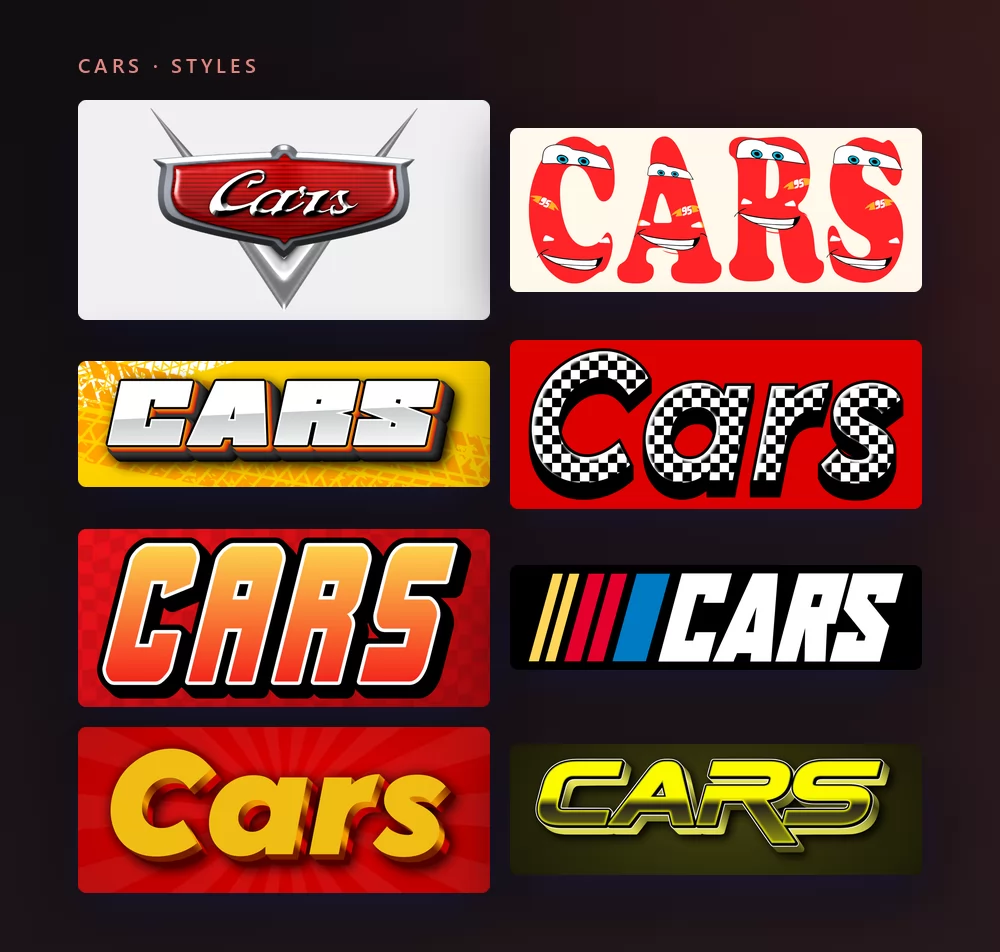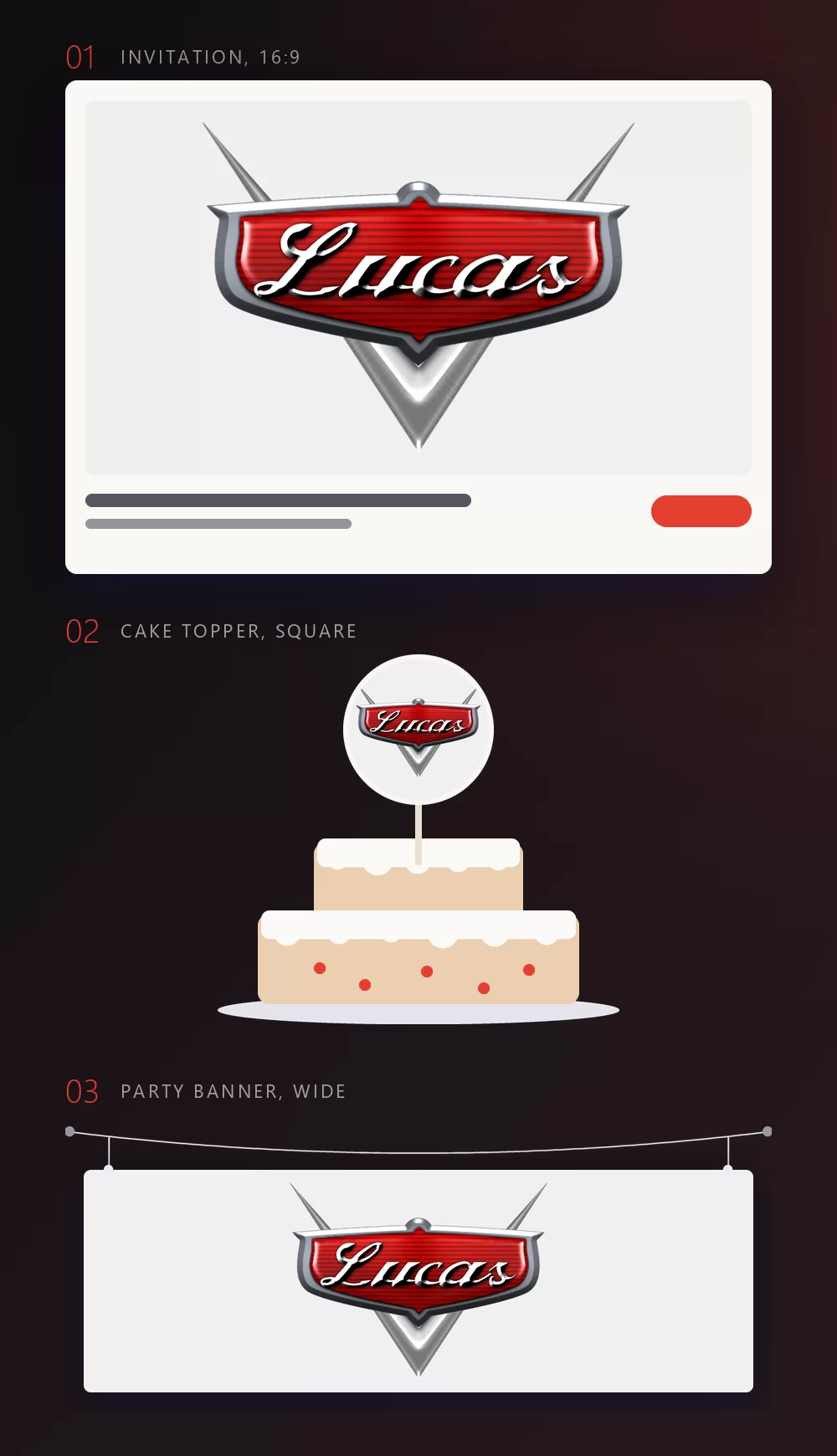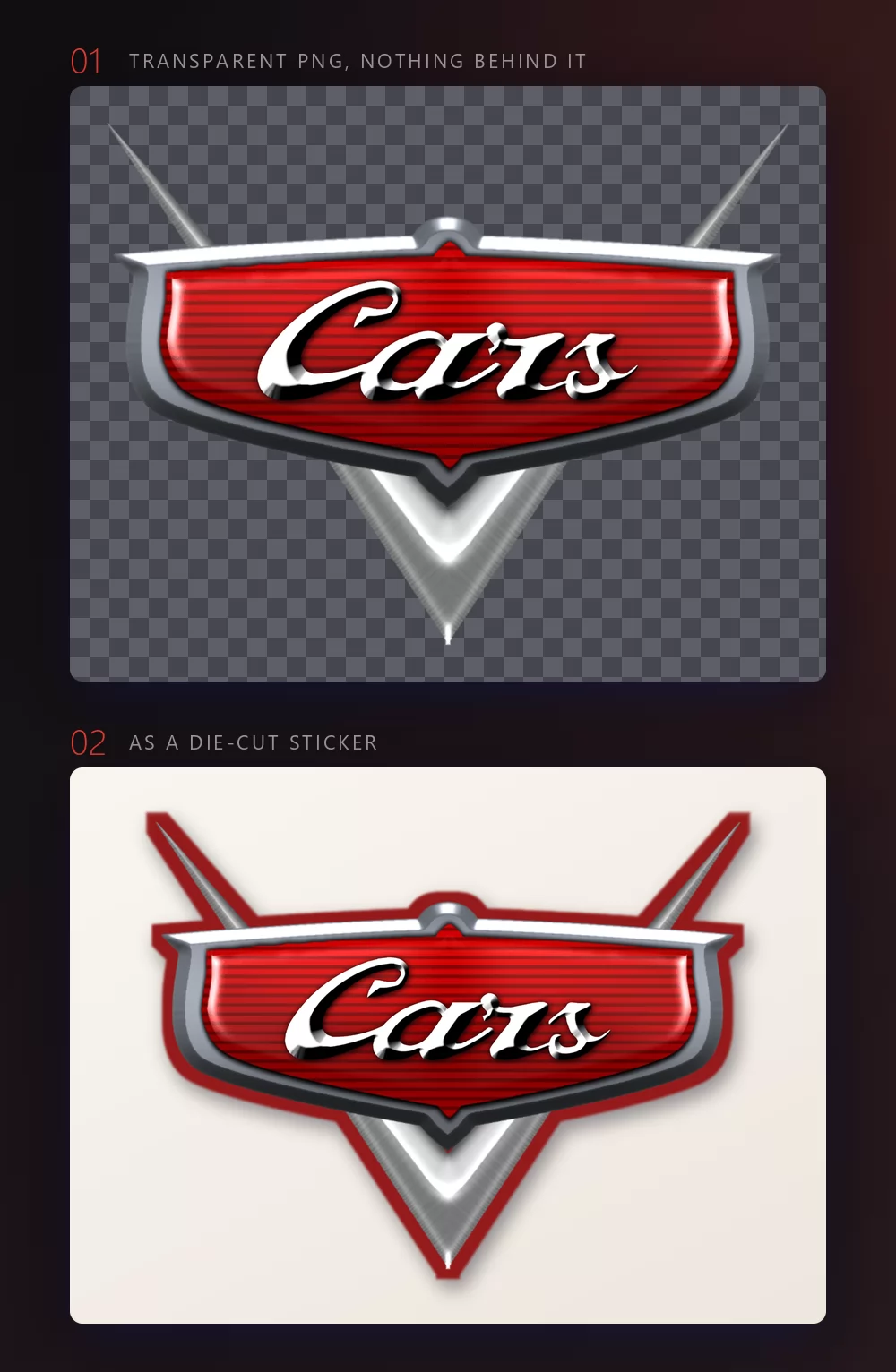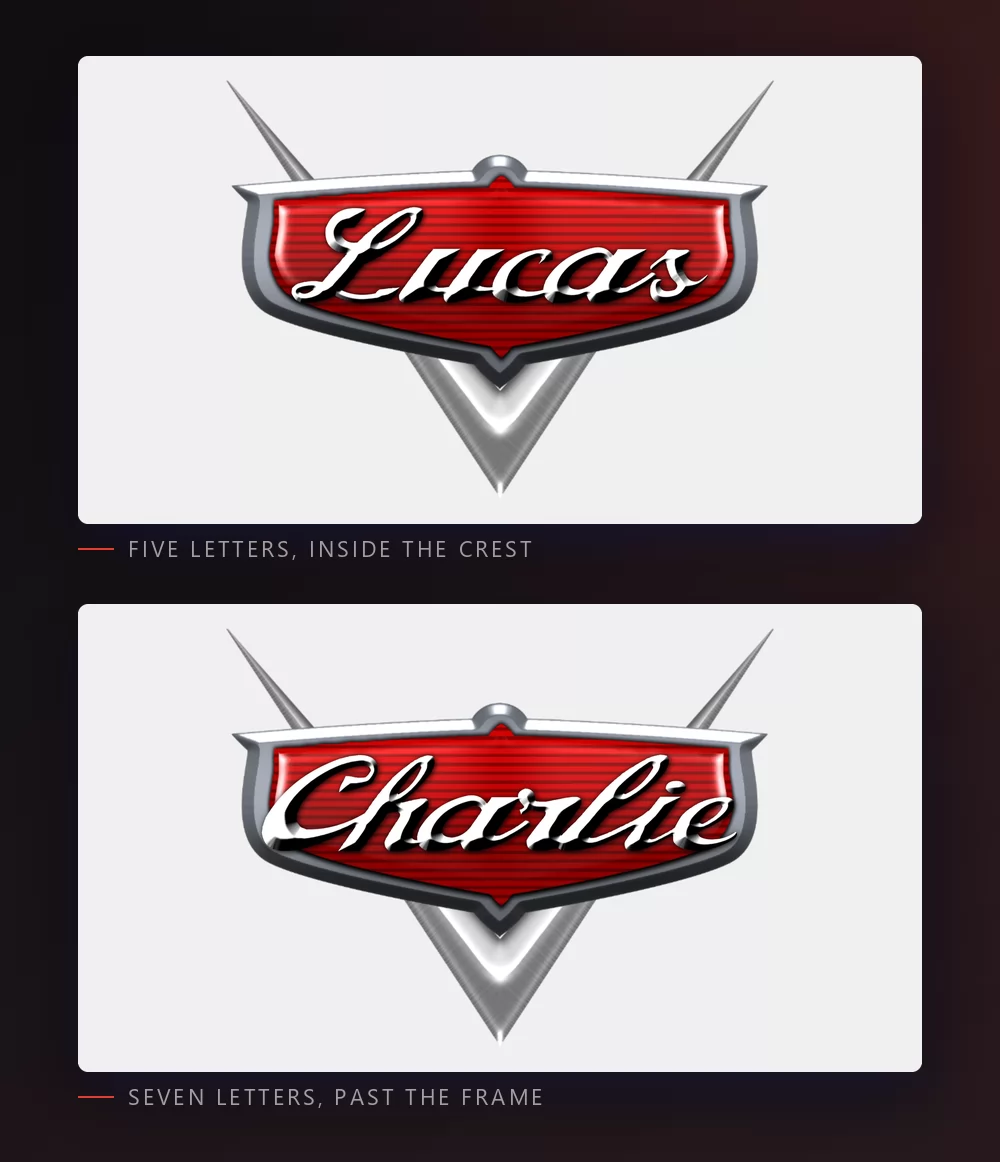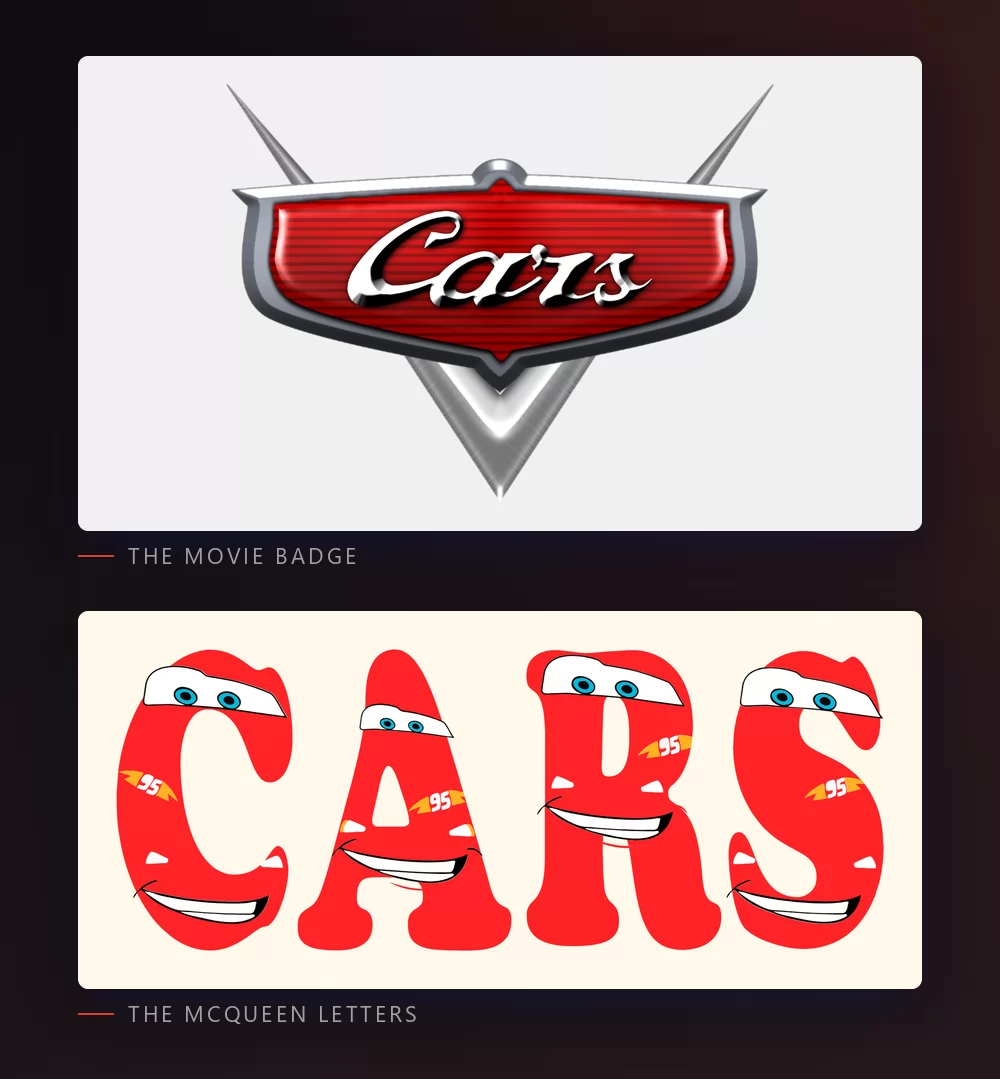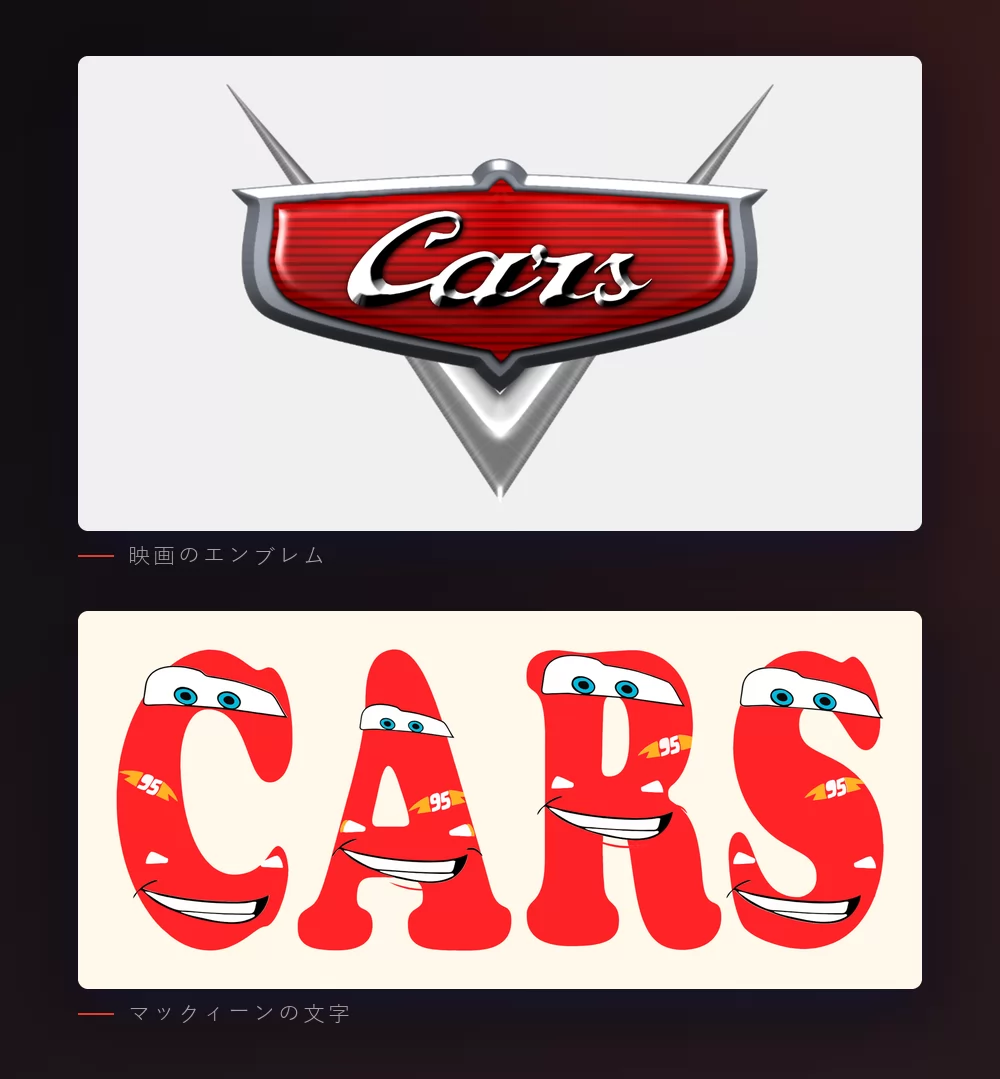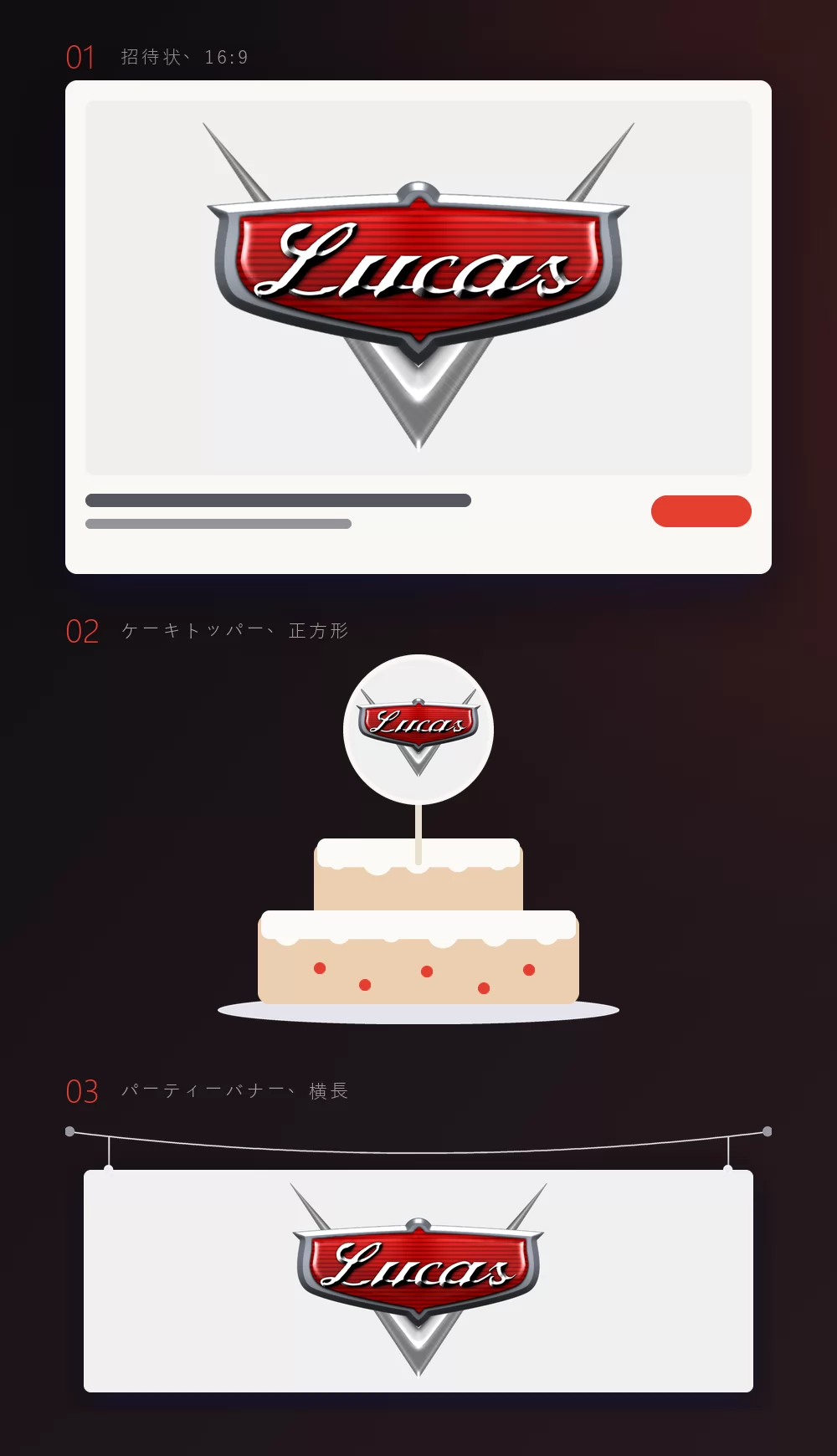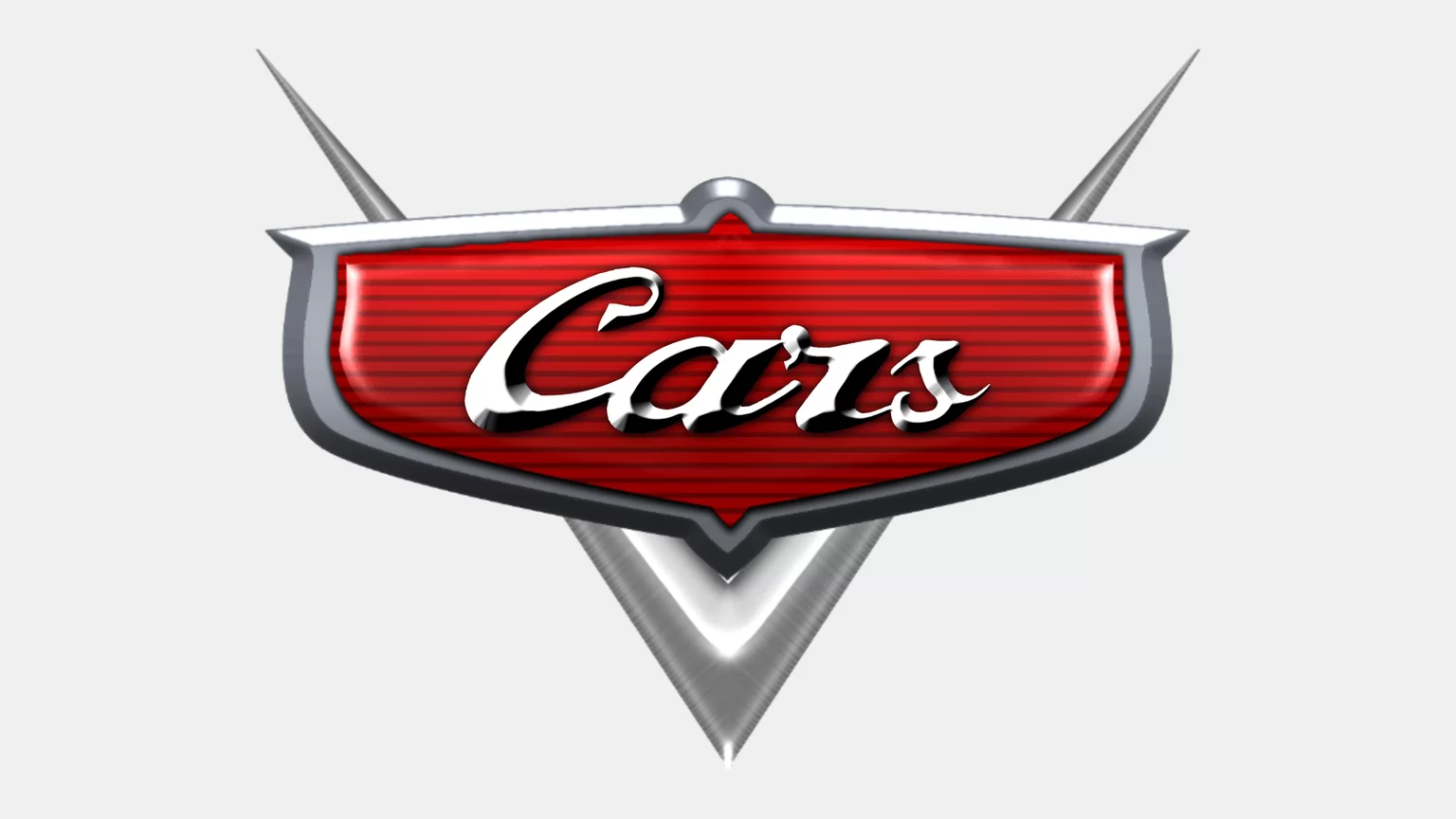
About the Cars font
Cars is a 2006 Pixar film, a comedy set in a world where the cars are the people. Its title is not typed, it is built: a chrome wordmark set inside a crest badge, closer to the ornament bolted on the hood of a fifties sedan than to a film poster.
The lettering itself is very close to Magneto Bold, drawn by Leslie Cabarga and released by Font Bureau in 1995. Microsoft's own typography page describes it as recalling "the chrome-strip lettering laid along the rounded shapes of refrigerator doors and automobile trunks in the forties and fifties", which is exactly the era the film is quoting.
How to make Cars text
Step 1. Type the name
Open the generator and replace the sample text with yours. The badge is built around the word, so a first name is what it is for: the crest fills itself in as you type.
Step 2. Pick a style
The style on the target page is the badge: chrome script, red enamel, silver crest. The list also holds the racing side of the film, checkered flags, tyre tracks, racing stripes, and the letters with Lightning McQueen's eyes on them. The Style tab lets you change the fill, the outline and the shadow in either.
Step 3. Pick the shape
Set the shape before you export and nothing gets cropped afterwards. A 16:9 for an invitation, a square for a cake topper or a profile picture, a wide strip for a banner over the table. The three mock-ups above are what those shapes become once they are in place.
How many letters fit inside the crest
We measured it, because it decides which style you should pick. The crest comfortably holds five letters. At six the first and last letters touch the silver edge. At seven they are outside it, as above.
And unlike every other style, making the text smaller does not help: the badge scales with the word, so the proportion never changes. For a longer name the answer is not a setting, it is another style. The racing capitals in the same list take any length, because they have no frame to escape from.
The badge, or the McQueen letters
The badge is the film's own logo shape: the chrome script on red enamel inside the silver crest. It is what people picture when they say "the Cars logo", and it is the one to use for a name on an invitation.
The McQueen letters are the other half of what people search for: each letter is a little red car, with the eyes in the windscreen and the 95 lightning bolt on the side. It reads as the character rather than the film, and it works better on a banner than shrunk into a profile picture.
Both are in the same list, so you can try a name in one, then in the other, without leaving the page.
Which font to install, if you want one
Magneto Bold is the identified match, and the first place to look for it is your own machine: it comes with Microsoft Office. Open the font menu in Word and type the name. If it is there, you are done, and you did not buy anything.
If it is not, Magneto is sold by Font Bureau and its resellers. It is a genuine commercial licence, so the copies floating around free font sites are not legitimate.
For an open licence, the honest pick is Alfa Slab One on Google Fonts, drawn by JM Solé in 2012 under the SIL Open Font License. Be clear about what it does and does not give you: it is a slab serif, so it matches the weight and the confidence, not the swash. It is what several other generators quietly use.
None of these gives you the crest. The badge is a shape, not a font, which is why the generator draws it around your text instead of asking you to find it.
What people actually make with it
Birthday parties first, by a wide margin: the invitation, the banner over the table, the cake topper, the name on the bedroom door, the number on a homemade race track. Then classroom door signs, YouTube thumbnails for toy car videos, and the odd printed T-shirt for a family party. Almost all of that goes better with a transparent PNG than with an installed font, because what people recognise is the crest and the chrome, and a font file gives you the letter shapes and nothing else.